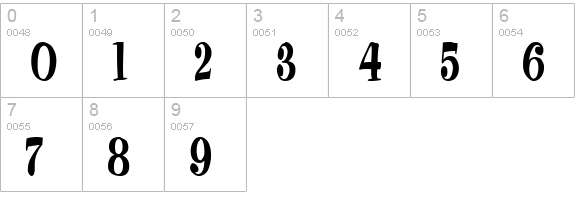
Fuzzbox Font Details
Fuzzbox font is a whimsical and playful typeface that adds a touch of fun and creativity to any design project. With its unique and irregular shapes, Fuzzbox font is perfect for creating eye-catching headlines, posters, and logos that stand out from the crowd. This font exudes a sense of spontaneity and originality, making it ideal for projects that require a touch of personality. Best of all, Fuzzbox font is completely free to download at FontsMarket.com. Whether you're a designer looking to add a quirky element to your work or just someone who appreciates a font that breaks the mold, Fuzzbox font is sure to inspire and delight. Don't miss out on the opportunity to enhance your projects with this one-of-a-kind typeface - download Fuzzbox font today and let your creativity run wild!